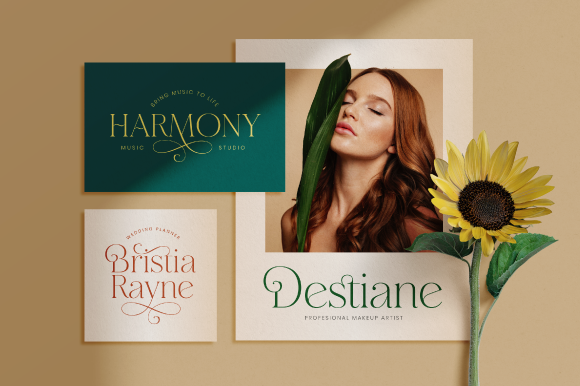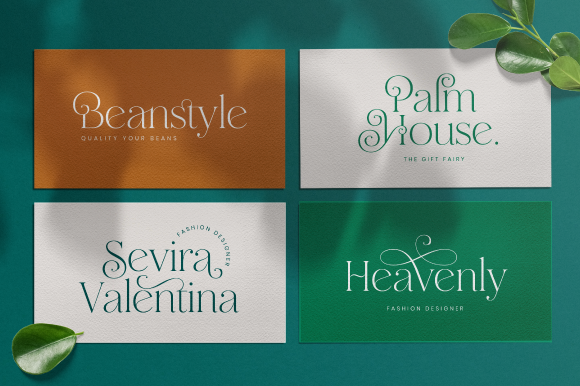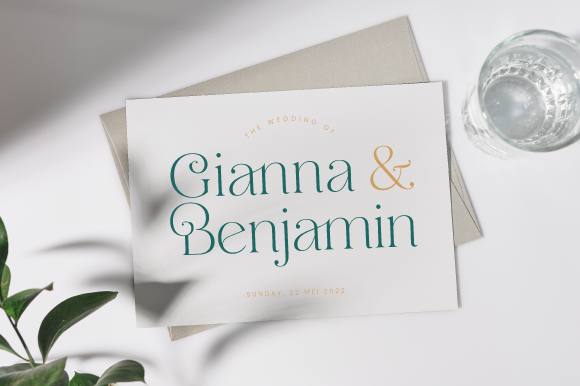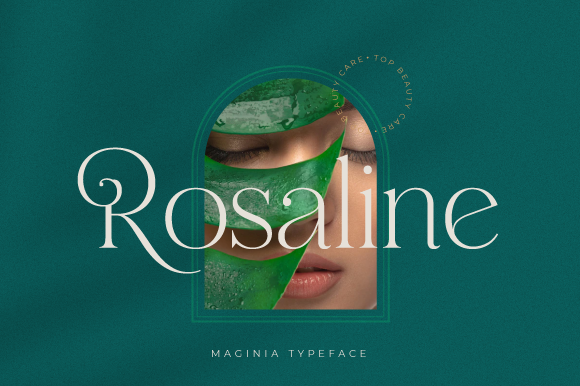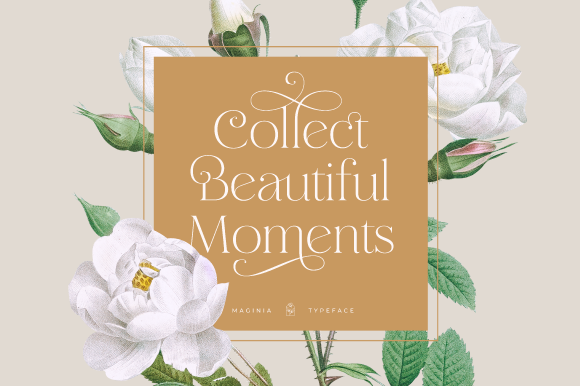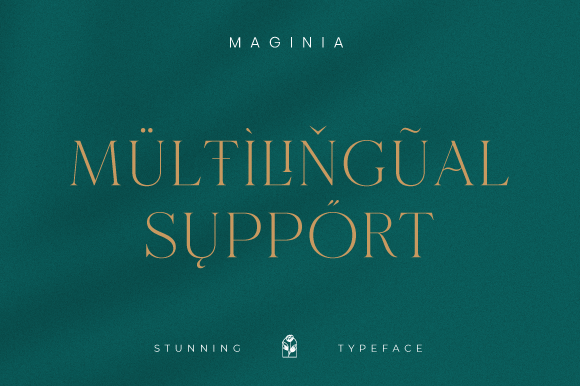
Introduction to Maginia Font
Have you ever found yourself staring at a blank canvas, searching for the perfect font to bring your creative vision to life? For designers, the quest for the ideal typography can be a daunting task, but what if I told you that the perfect font is just a click away? Enter Maginia Font, a delicate and stylish serif font that’s about to become your new go-to design resource.
With its high-quality design and transparent background, Maginia Font is the perfect addition to any creative project. Whether you’re working on a graphic design, a logo, or a digital art piece, this beautiful font will elevate your design to the next level. And the best part? It’s PUA encoded, making it easy to access all of the glyphs and swashes with ease.
Key Features of Maginia Font
- High-quality, professional font design ideal for creative projects
- Includes multiple font weights and styles for added versatility in creative projects
- Perfect for use in logos, branding materials, and other visual identity elements
Honest Review: Maginia Font
I recently had the chance to explore the Maginia Font, and I must say it’s a great addition to any designer’s toolkit. The font’s high quality is immediately noticeable, making it perfect for creative projects where attention to detail is crucial.
One of the standout features of the Maginia Font is its transparent background, which allows for seamless integration into various design elements. This flexibility makes it an excellent resource for designers working on a wide range of projects.
Here are some of the things that work well with the Maginia Font:
- High-quality design: The font’s crisp and clean lines make it perfect for professional projects.
- Transparent background: This feature allows for easy integration into various design elements.
However, I did encounter some limitations while working with the Maginia Font:
- Limited font styles: While the font is high-quality, it’s limited in terms of font styles, which may not be suitable for all design projects.
- Not ideal for large-scale text: The font may not be the best choice for large-scale text, as it can become difficult to read.
Overall, I’m impressed with the Maginia Font, and I would recommend it to designers working on creative projects that require high-quality typography.
Maginia Font
Tips for Getting the Most Out of Maginia Font
Maginia Font is perfect for creating professional-looking designs, presentations, and documents. Its clean and modern aesthetic makes it ideal for business, marketing, and creative projects. With a transparent background, you can easily use it on any background image to create a cohesive look.
Is Maginia Font a high-quality design resource?